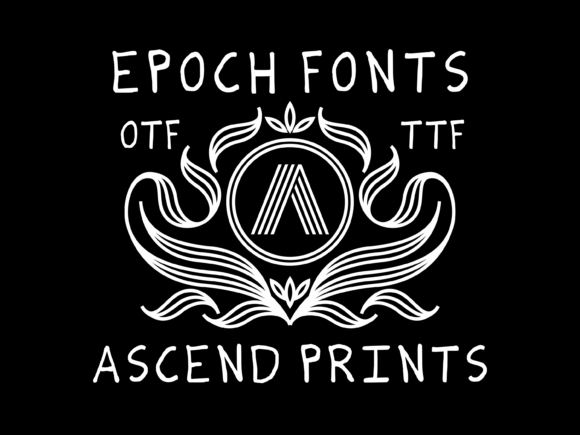
Introducing Epoch Font: The Sweet and Friendly Handwritten Font for Your Creative Projects
Are you a designer, crafter, or DIY enthusiast looking for a font that can add a personal touch to your creative projects? Look no further than Epoch Font, a sweet and friendly handwritten font that’s perfect for a wide range of designs. With its natural and unique style, Epoch Font is incredibly versatile and can be used for various projects, from crafting and scrapbooking to branding and advertising.
The Characteristics of Epoch Font
Epoch Font is a handwritten font that’s designed to look like it was written with a pen or pencil. Its natural, fluid strokes and subtle imperfections give it a charming and organic feel that’s perfect for designs that require a personal touch. The font features:
- Unique and quirky letterforms: Each letter in Epoch Font has its own unique character, making it perfect for designs that require a personal touch.
- Natural and fluid strokes: The font’s strokes are smooth and fluid, giving it a handwritten feel that’s perfect for designs that require a personal touch.
- Subtle imperfections: Epoch Font features subtle imperfections, such as slight variations in line width and spacing, that give it a charming and organic feel.
The Benefits of Using Epoch Font
Epoch Font is an incredibly versatile font that can be used for a wide range of designs. Here are just a few benefits of using Epoch Font:
- Perfect for crafting and scrapbooking: Epoch Font is perfect for crafters and scrapbookers who want to add a personal touch to their projects.
- Great for branding and advertising: The font’s unique and quirky letterforms make it perfect for brands that want to stand out from the crowd.
- Suitable for digital and print designs: Epoch Font can be used for both digital and print designs, making it perfect for designers who work on a variety of projects.
Epoch Font is a sweet and friendly handwritten font that’s perfect for designers, crafters, and DIY enthusiasts who want to add a personal touch to their creative projects. With its natural and unique style, Epoch Font is incredibly versatile and can be used for a wide range of designs. Whether you’re working on a crafting project, a branding campaign, or a digital design, Epoch Font is the perfect choice.